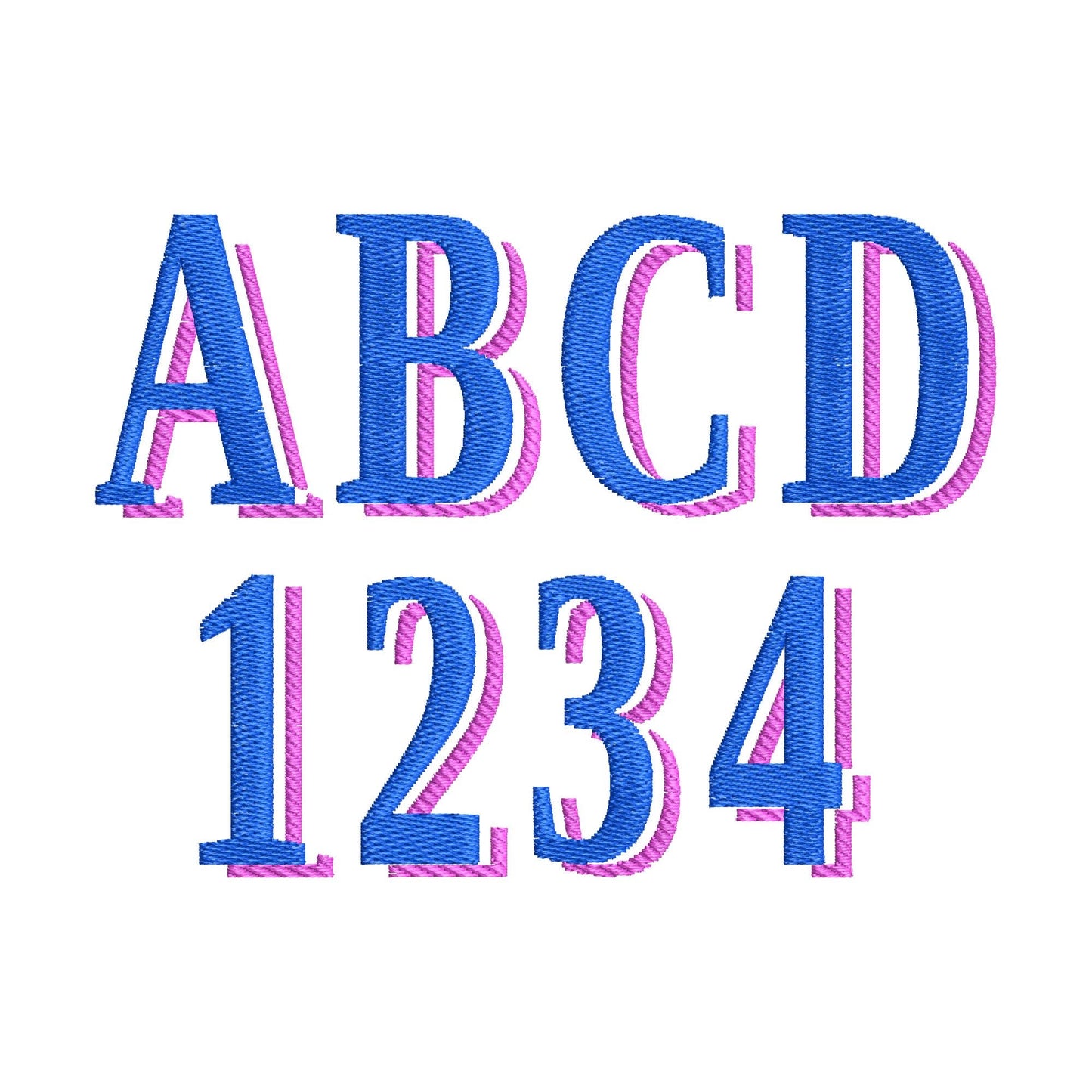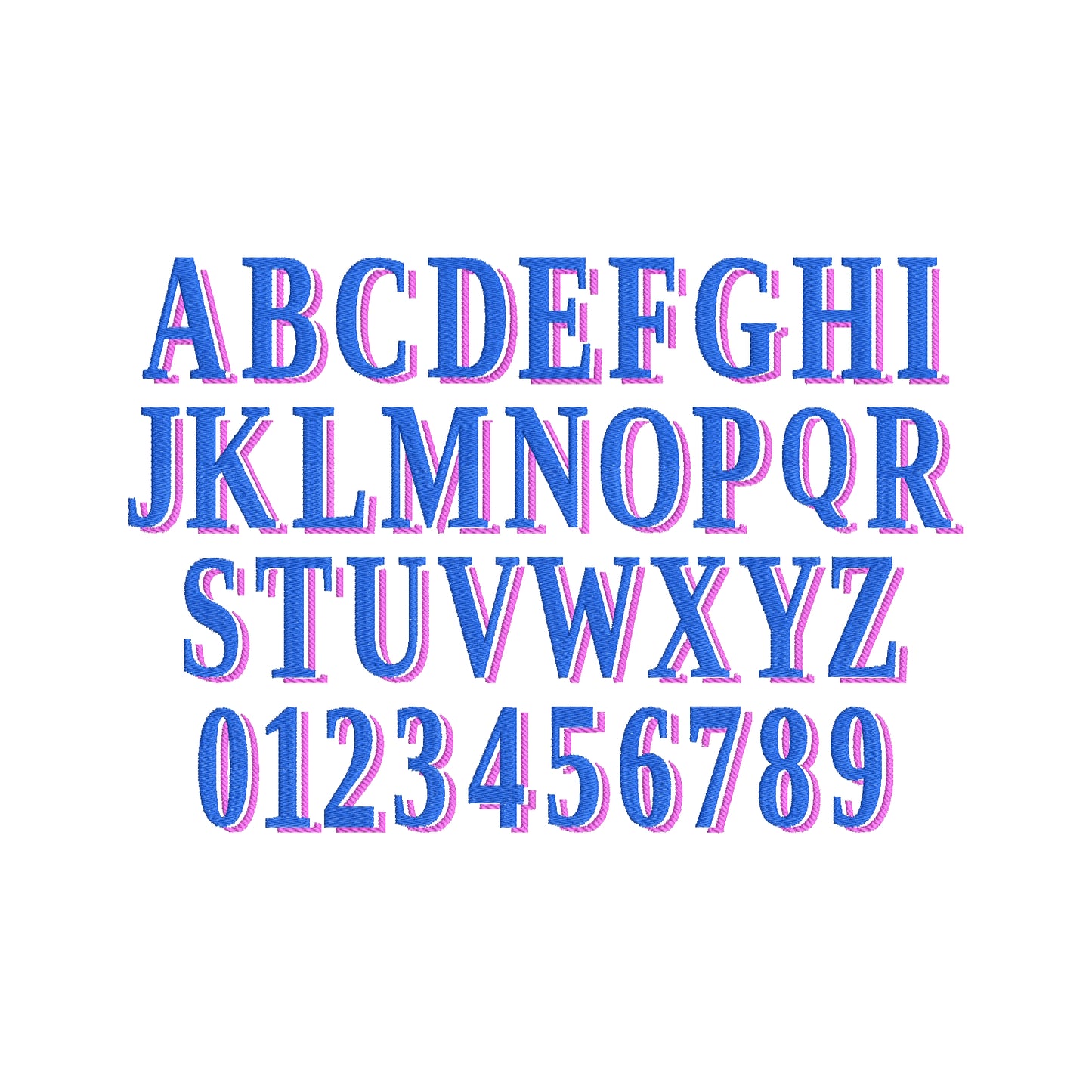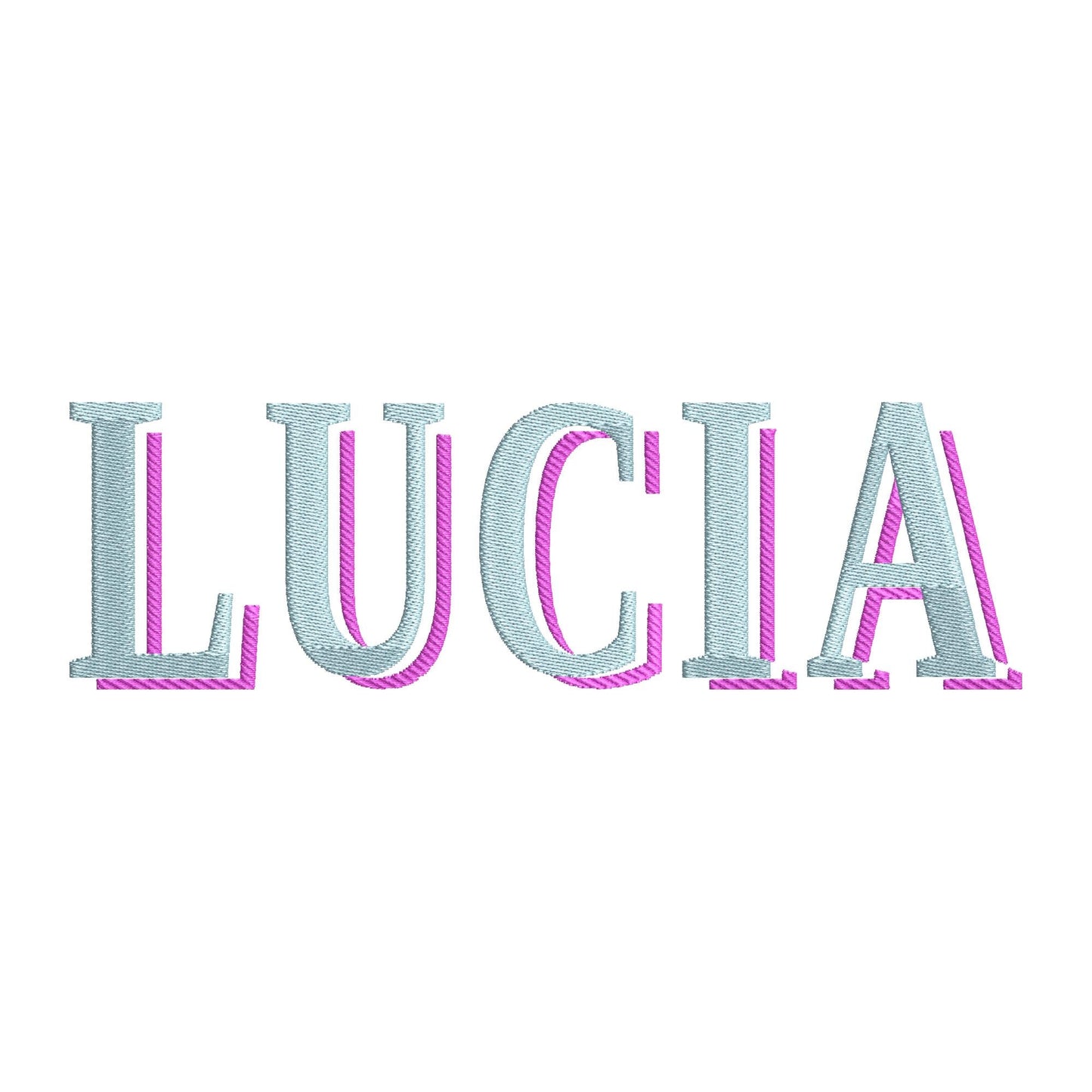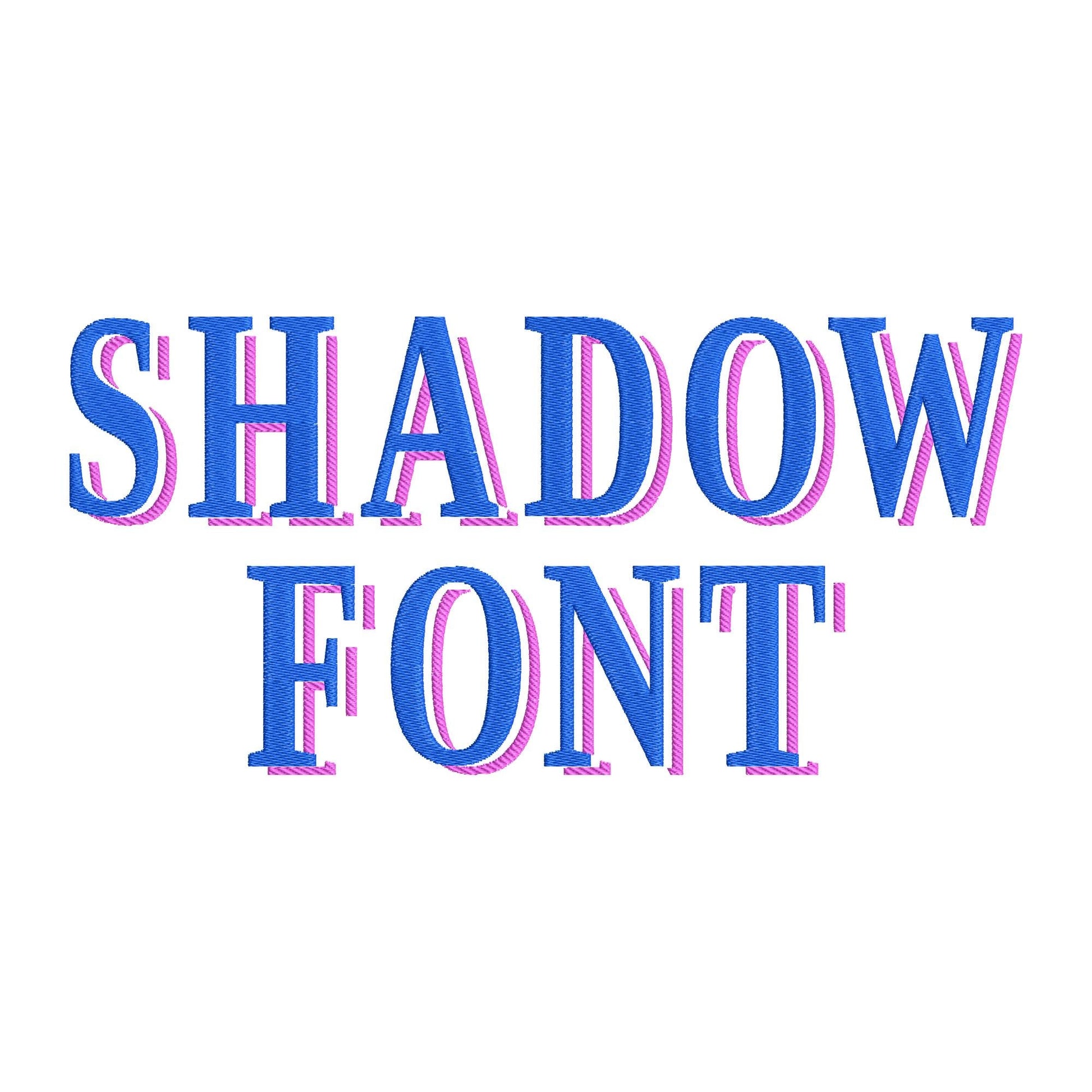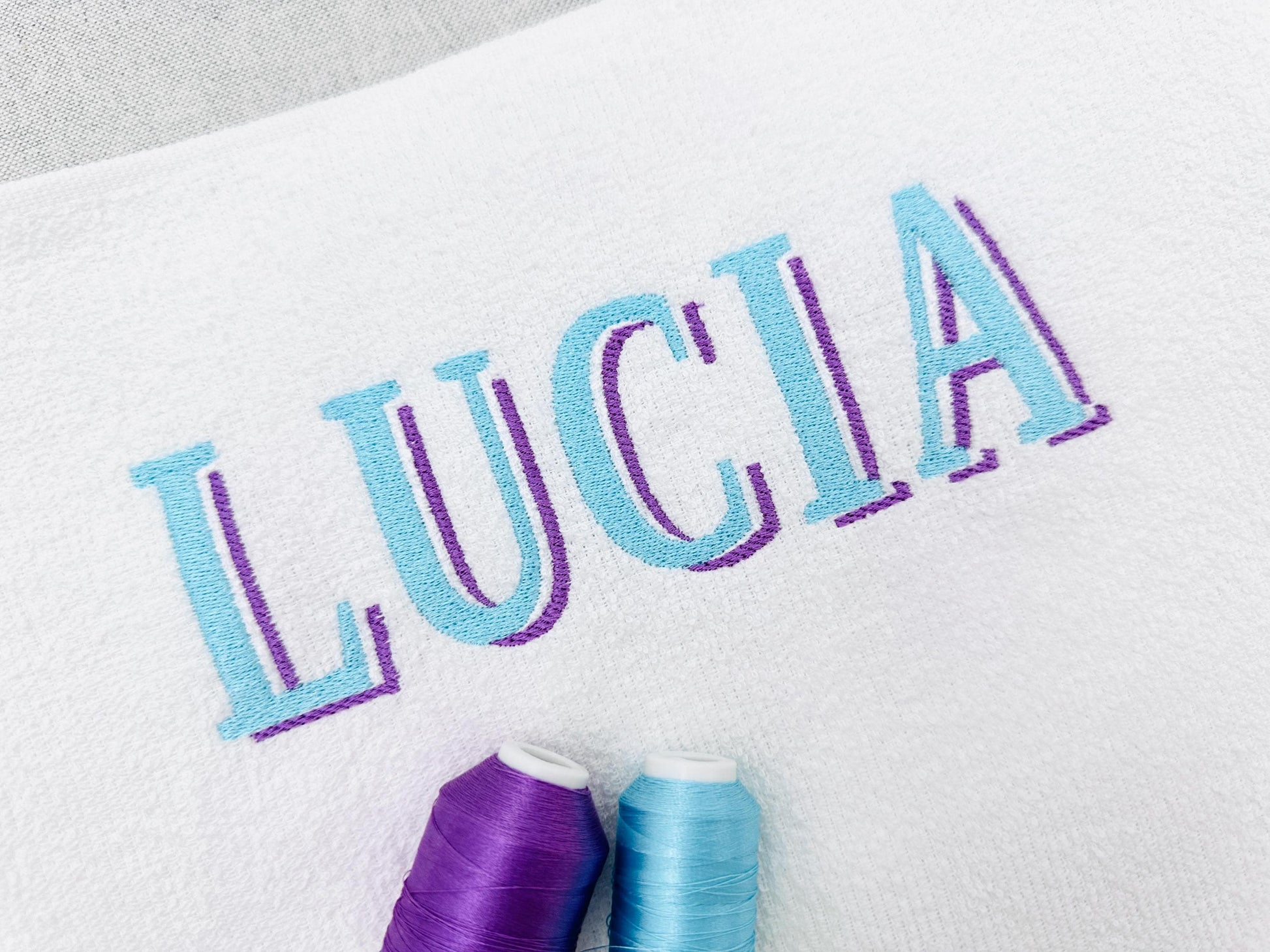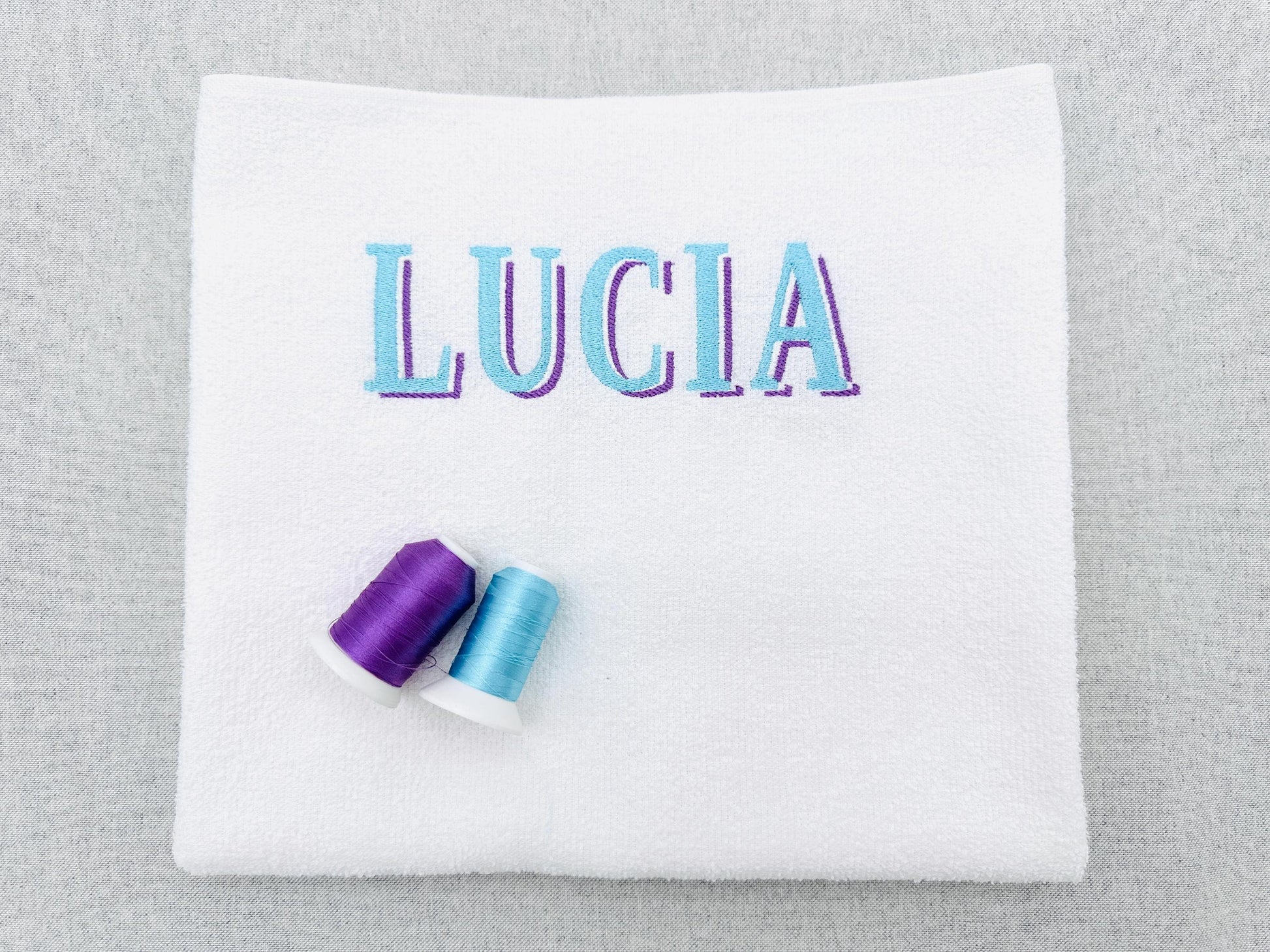
Tiny Shadow Collegiate Font
Collegiate-style fill stitch letters with a shadow, 3.5 inches tall. Includes uppercase letters A to Z and numbers 0 to 9.
- Collegiate shadow font, fill stitch
- Uppercase A to Z, numbers 0 to 9
- One size, 3.5 in